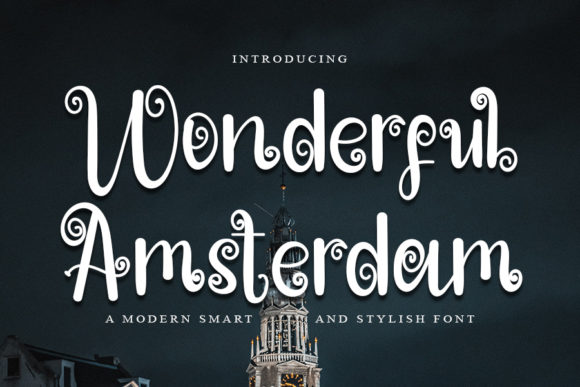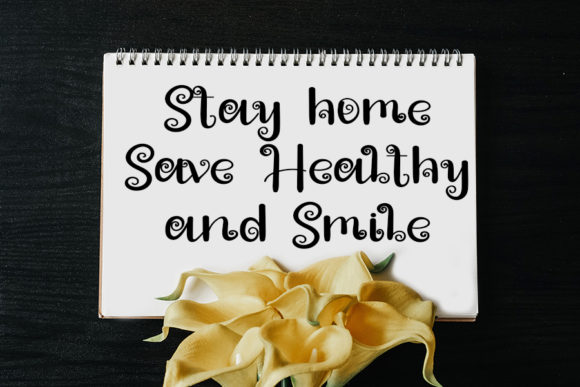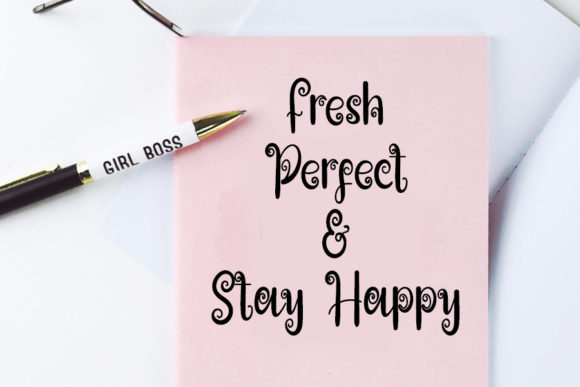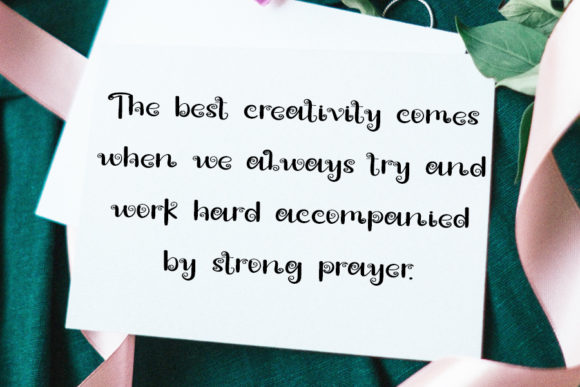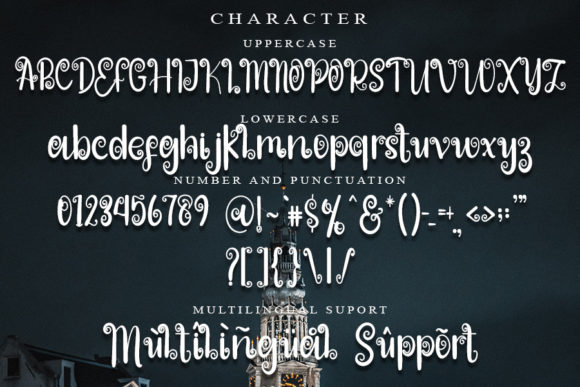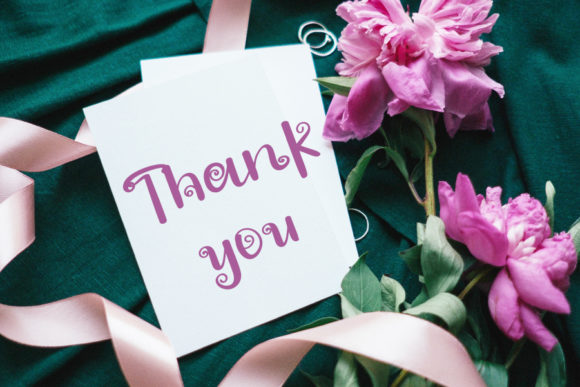
Wonderful Amsterdam Font
About Wonderful Amsterdam Font
Wonderful Amsterdam is a modern and stylish script font. Suitable to a wide variety of designs due to its neat and simple style, this font has the potential to become your favorite go-to font, no matter the occasion!